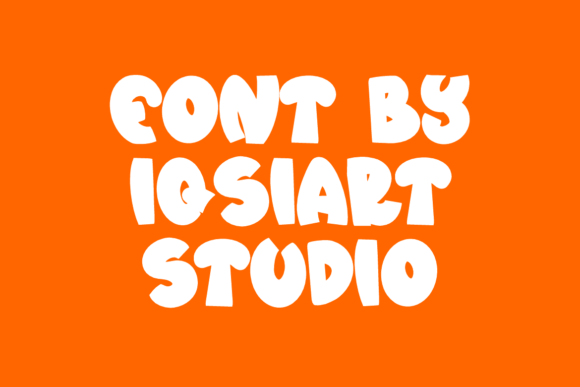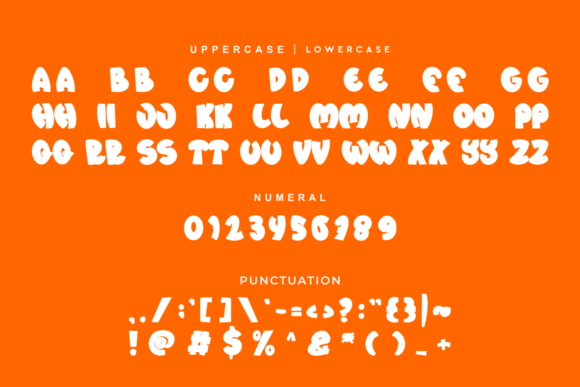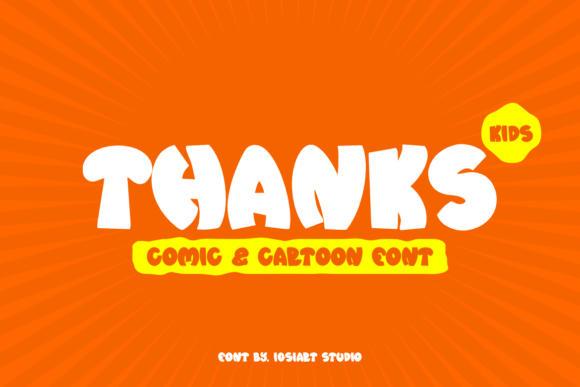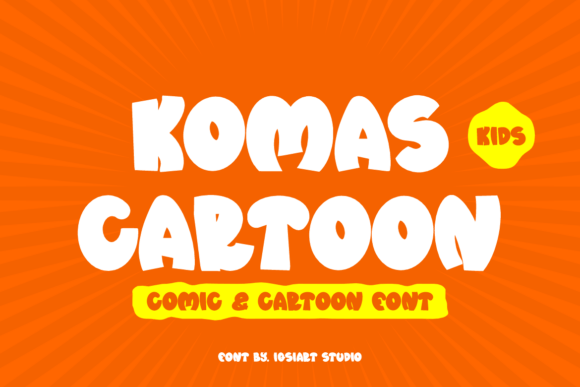
Introduction to Komas Cartoon Font
Komas Cartoon is a bold and playful display typeface bursting with energy and fun.
Designed with a chunky, comic-inspired style, it instantly brings joy and character to your creative projects Its rounded shapes and bouncy rhythm make it perfect for kids’ themes, comics, cartoons, games, and any design that needs a cheerful, lighthearted touch.